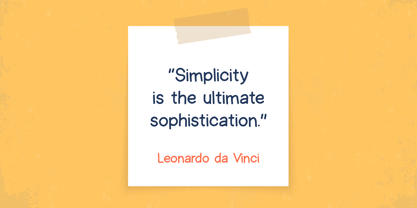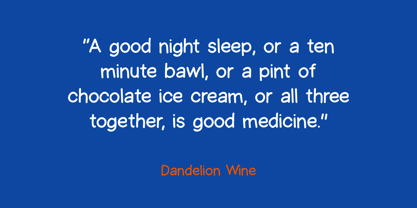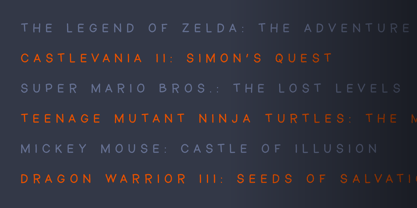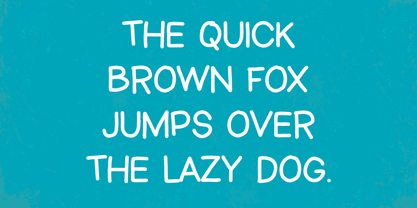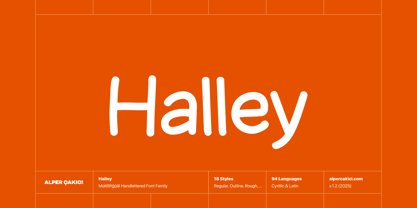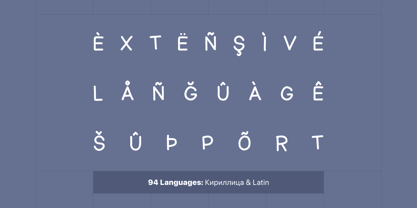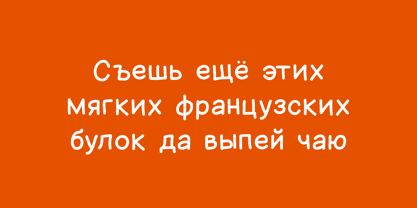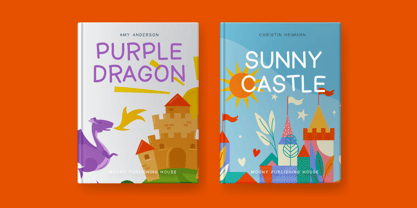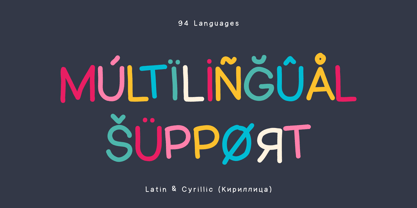
Halley
by AlperCakici
The Halley Font Family was designed by Alper Çakıcı and published by AlperCakici. Halley contains 18 styles and family package options. More about this family
Halley is a lively handwritten typeface family with a playful, doodle-like spirit designed to spark creativity and personality in every project. With expressive strokes, organic curves, and an authentic hand-drawn feel, Halley brings warmth and charm while remaining clear, flexible, and highly usable. The family features 18 distinct instances, including Regular, Italic, Angular, Brush, Pencil, Rough, Eroded, Inline, Outline, and Rimmed styles—many with matching italics. This wide range spans from clean and friendly to bold, textured, and experimental, giving designers exceptional freedom for branding, packaging, editorial headlines, kids’ projects, posters, and energetic social media visuals. With support for 94 languages across Latin and Cyrillic, Halley is ready for global and multicultural design work. Its cheerful personality and genuine doodle-inspired character make it an ideal choice for playful, expressive, and imaginative visual identities. If your design needs personality, movement, and a touch of joyful creativity, Halley is ready to make your work shine.
Designers: Alper Çakıcı
Foundry: AlperCakici